Typography plays a huge role in setting the mood of any design project, and when it comes to Valentine’s Day fonts, nothing creates a more romantic atmosphere than elegant and stylish typefaces. In this post, we’ve collected 20 beautiful Valentine’s Day fonts that will help you design projects full of love, charm, and emotion.
These romantic fonts are perfect for a wide range of creative ideas. Whether you are designing Valentine’s Day greeting cards, creating love quote posters, preparing party flyers, or working on wedding invitations, the right Valentine’s typeface will make your work look more polished, attractive, and heartfelt.
Our collection includes a variety of styles to suit different design needs:
Handwritten fonts that give a personal, intimate touch.
Calligraphy fonts with elegant flourishes and swashes for wedding designs.
Cute playful fonts that bring a lighthearted, fun mood to Valentine’s Day projects.
Modern serif and sans-serif fonts that balance romance with sophistication.
1. JeanSunHo
JeanSunHo -An ultra-thin handwritten font with a romantic touch. Available in two thicknesses – medium and bold in TTF font format. The font designer is Kevin Ritchie.
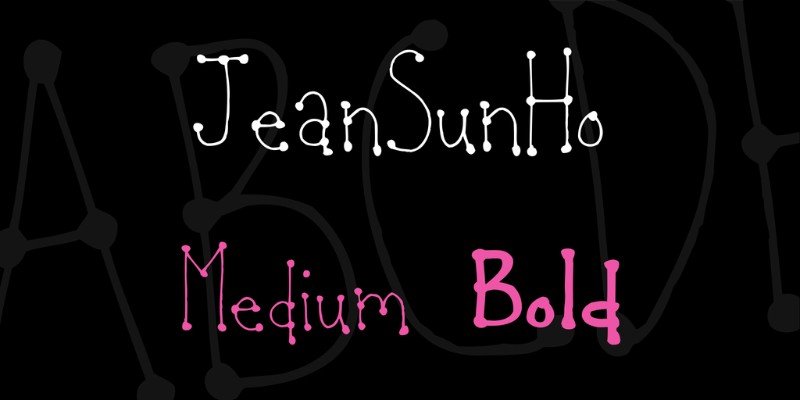
2. Font Heartland
This is the font I used for our free Valentine’s Day card. I wrote “Love” in the Heartland font as shown in the image above. This is a free font for commercial use designed by Harold’s Fonts. The format of the font is TTF.
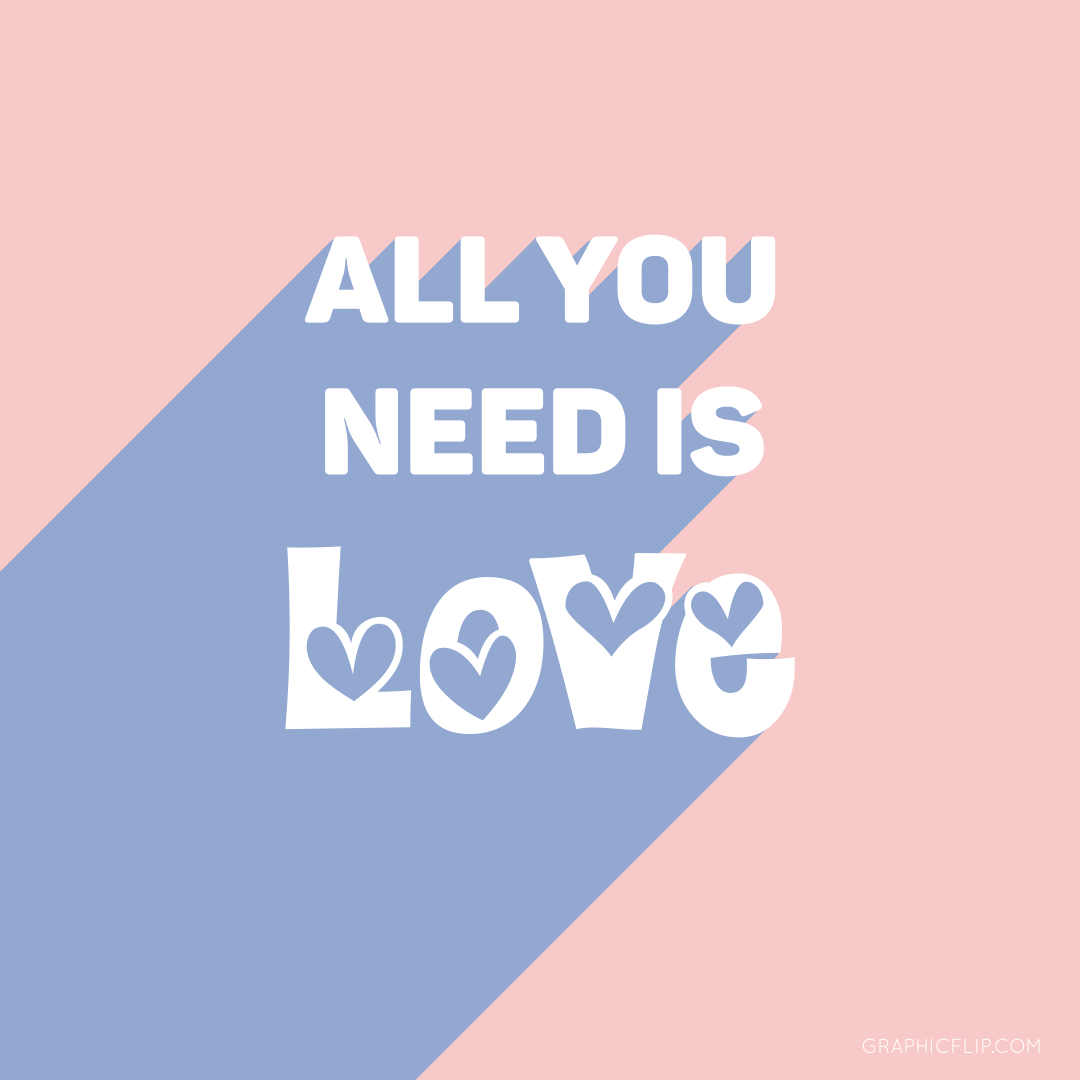
3. Valentine Day Serif Font
alentine Day is a modern serif font with elegant look. This font is simple yet stylish and it had a certain feel of romance that is quite appealing. This font has a lot of pretty flowing lines and shapes incorporated into it. In comparison to the other font types, the Serif typefaces are rather specialized.
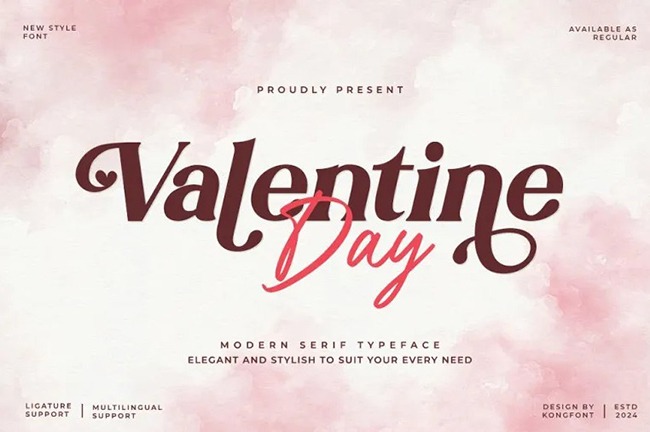
4. Always Amora Font
Always Amora is a charming and expressive display typeface designed to bring a romantic vibe to your creative work. Playful curves and sweet heart accents make it a perfect choice for posters, greeting cards, Valentine’s designs, invitations, and other love-inspired projects.
5. BellaBerry Lovely Script Font
BellaBerry Lovely Script is a charming font featuring elegant uppercase and lowercase letters, multilingual support, numerals, punctuation, and graceful lowercase ending swashes. Its romantic and modern style makes it a perfect choice for a wide range of creative projects, including invitation designs, branding and stationery, weddings, birthdays, quotes, crafts, and many other personal or commercial designs.
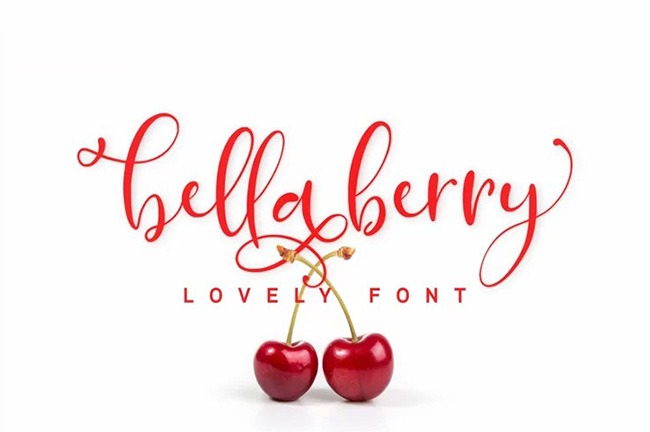
6. Loveya – Romantic Script Font
This romantic calligraphy font is perfect for Valentine’s Day, featuring delicate heart accents woven into its elegant flourishes. Each uppercase letter includes a subtle heart detail, with select lowercase characters also incorporating charming heart elements. When used with software that supports alternate glyphs, you’ll unlock a variety of decorative flourishes adorned with sweet heart motifs. It’s also a great font to print and explore for inspiration when adding custom flourishes to your own calligraphy work.
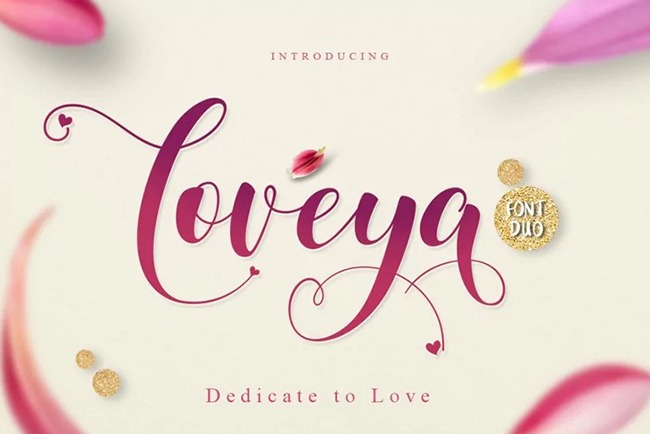
7. Lovers Quarrel
Lovers Quarrel is an ornate calligraphy font with beautifully decorated uppercase letters and clean, legible lowercase letters. This decorative font will look great on Valentine’s Day greeting cards, wedding invitations and quote posters. Developed by TypeSETit, it is available as a TTF font.
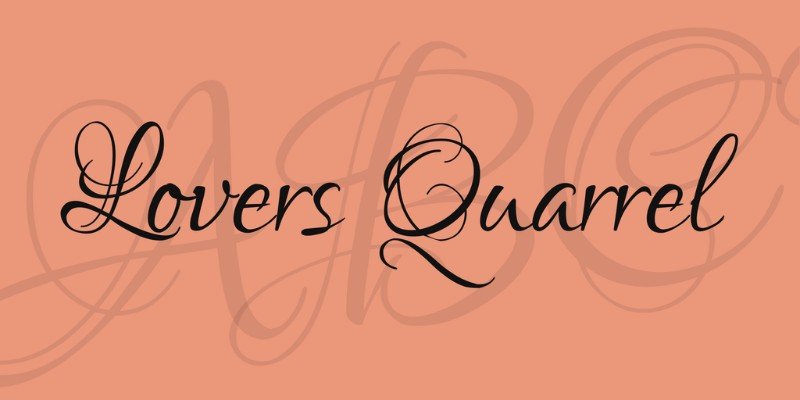
8. Our First Kiss
This free font by Paulo R can be used in personal and commercial projects. It comes with stylistic alternates and other OpenType features and supports more than 40 languages. Font format: OTF.
9. True Love Font
True Love is a graceful handwritten font with fluid strokes and thoughtfully balanced letterforms, making it a versatile choice for a wide variety of design projects. Fully PUA encoded, this font allows effortless access to all glyphs and decorative swashes—no special software required.
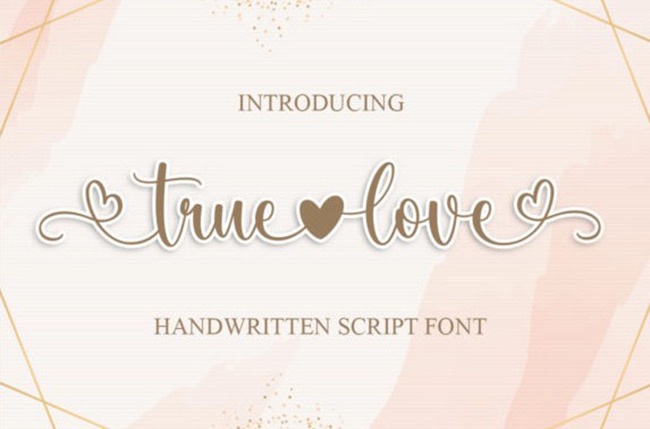
10. Alyana Font
Alyana is an elegant and refined script font with a distinctive personality. Its delicate details paired with confident, bold strokes create a captivating look that’s easy to fall in love with.
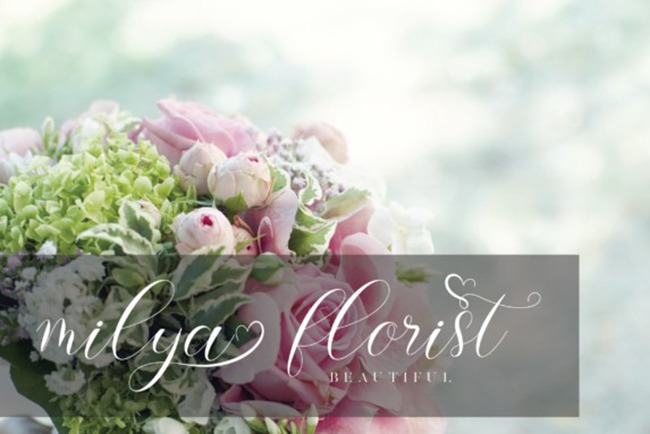
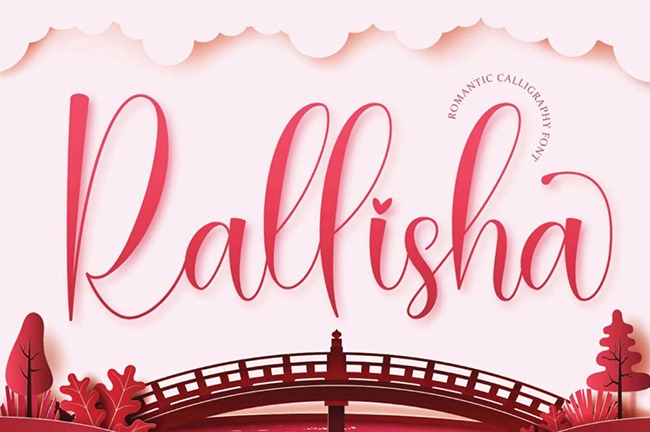
20. Romantically – the lovely natural signature font
Romantically, created by Abo Daniel, is a graceful and natural signature-style font with an elegant, handwritten character. Designed to feel effortlessly classy, it supports multiple languages and includes 10 decorative swashes along with 417 ligatures for expressive typography. This font is a perfect choice for branding, photography, invitations, quotes, watermarks, advertising, product designs, labels, and many other creative applications.